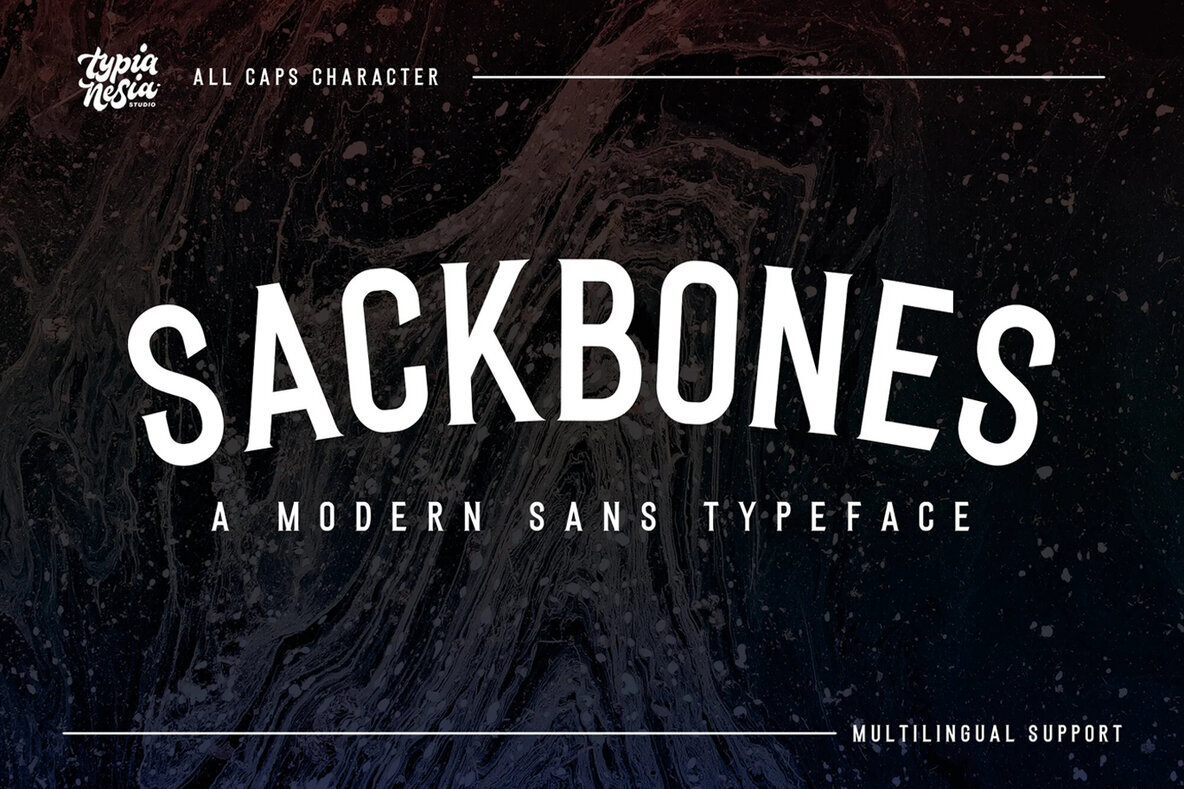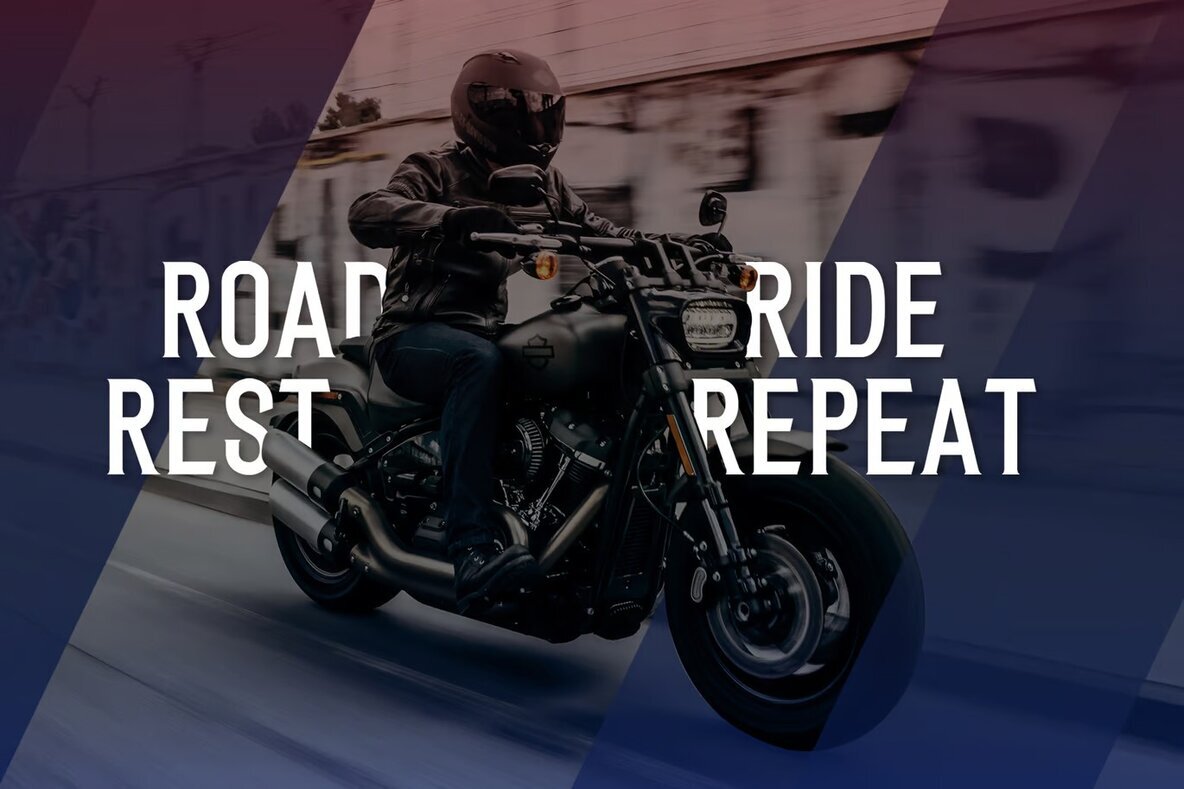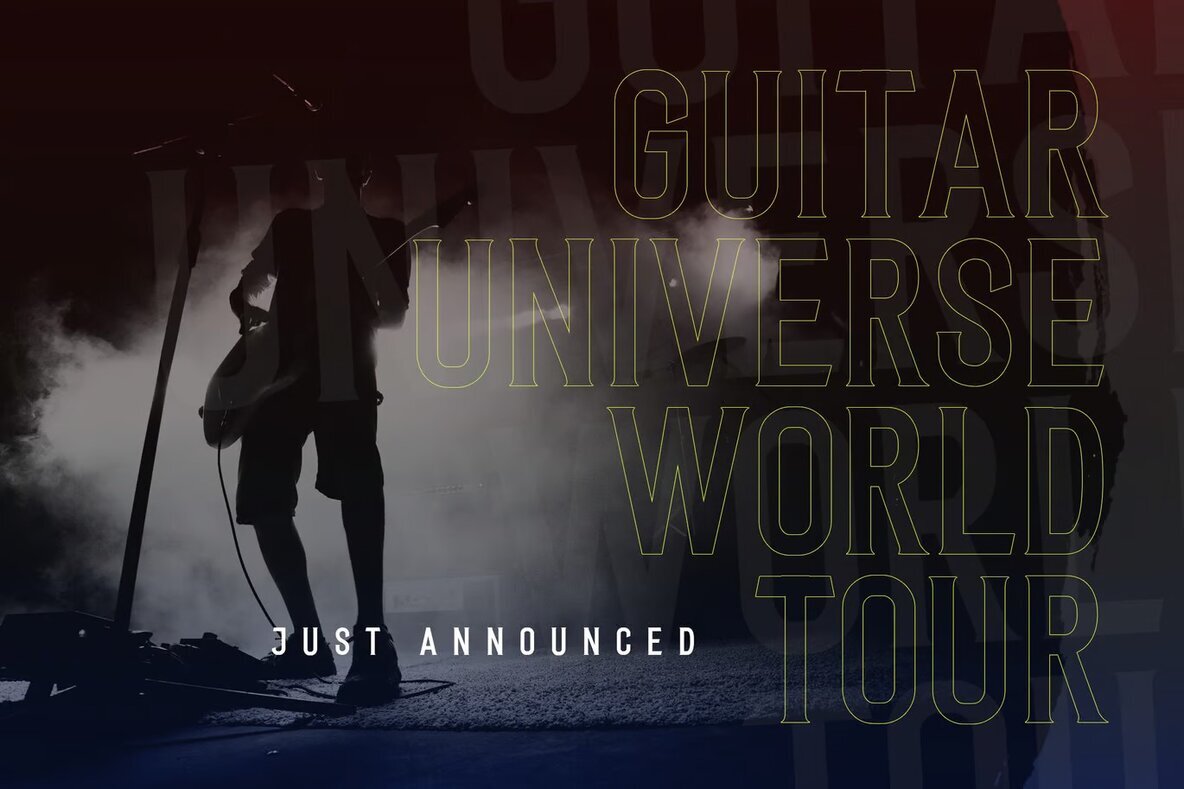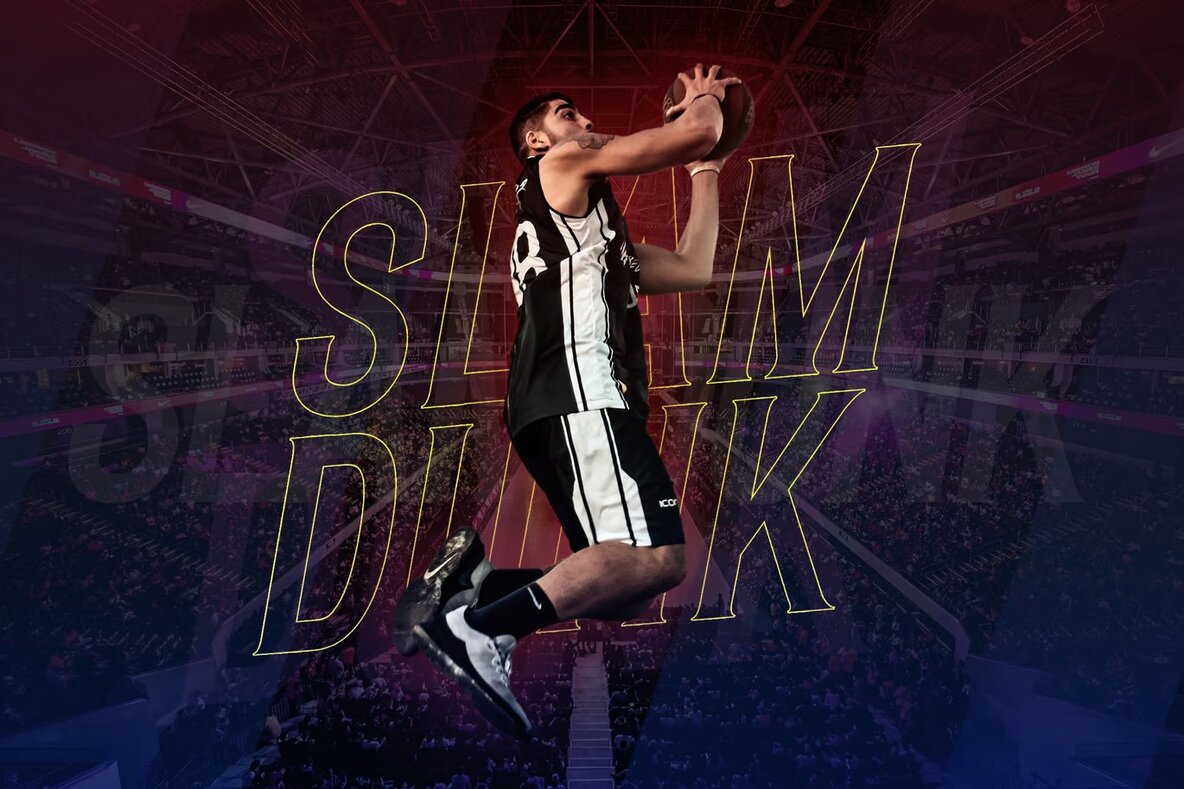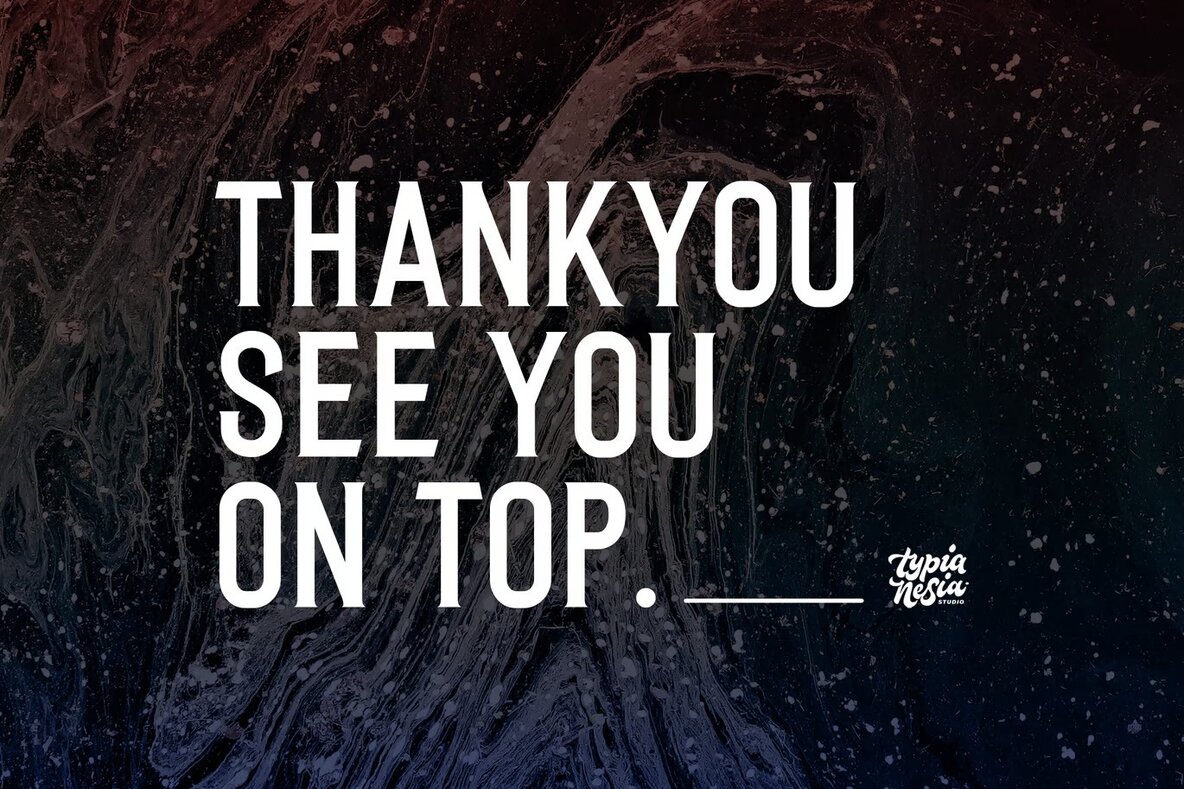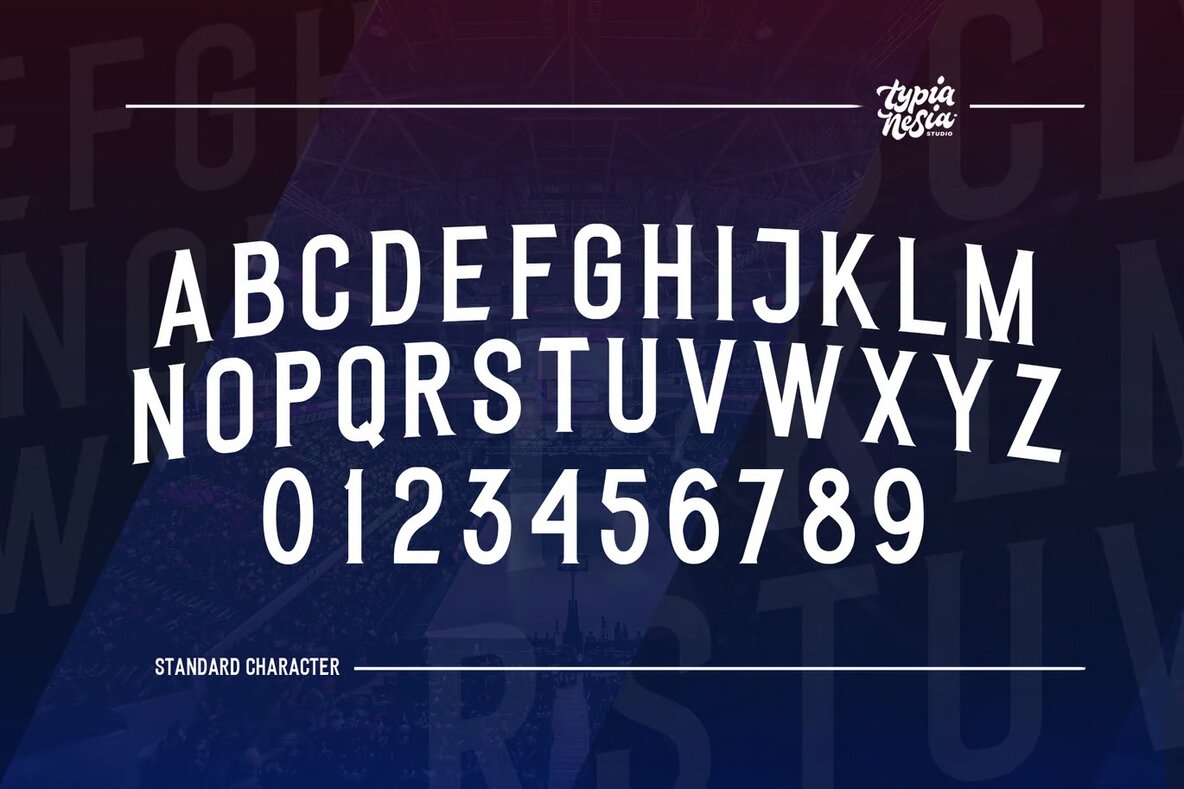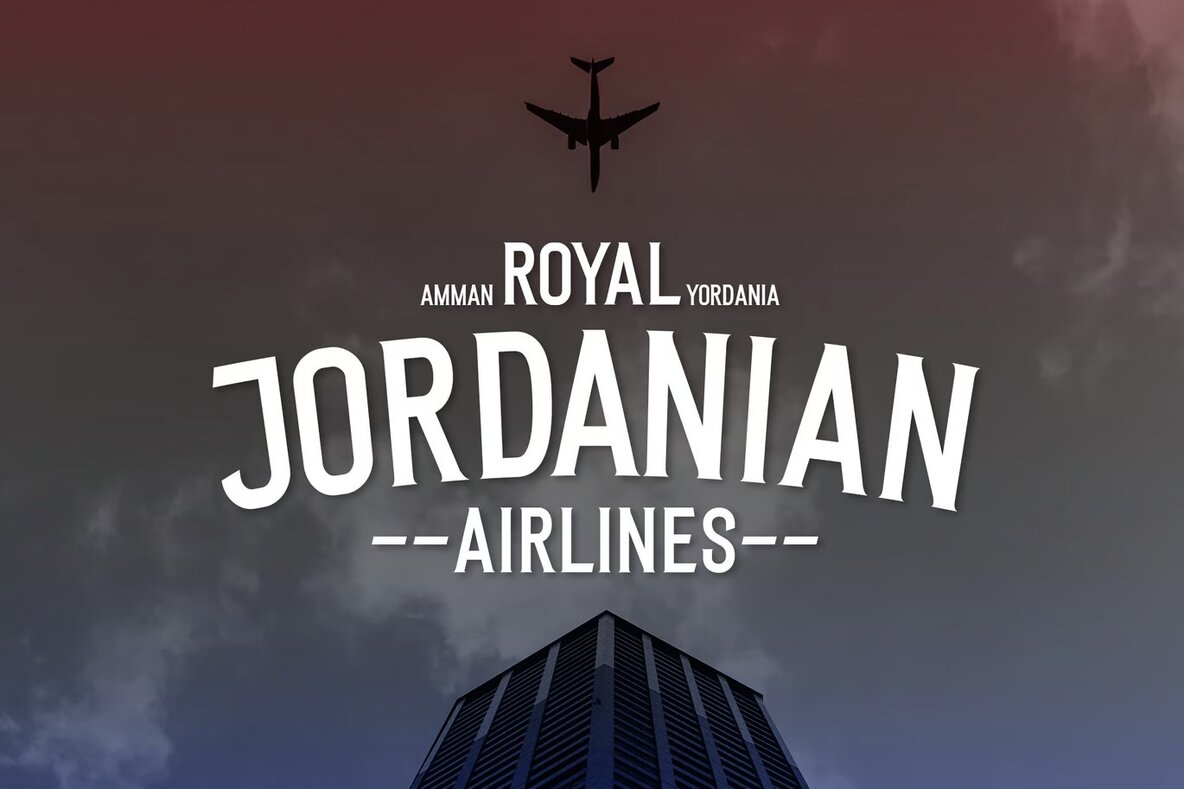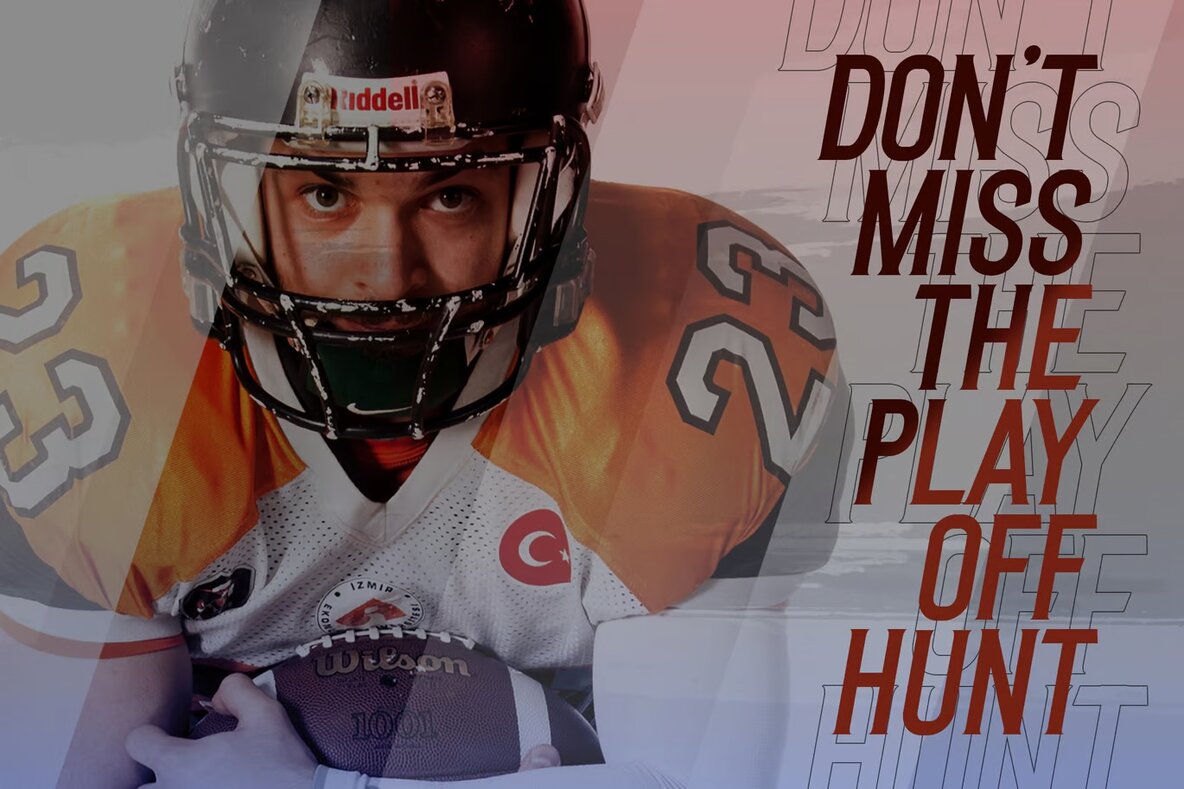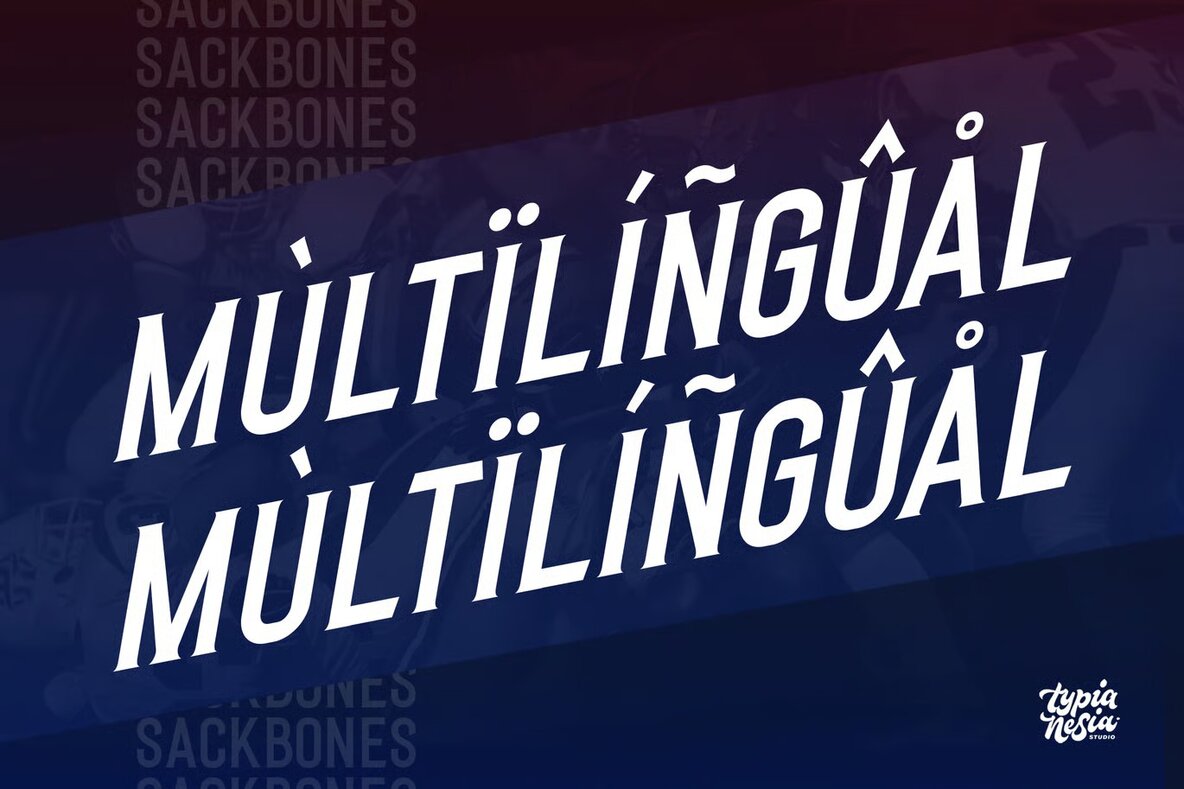
Sackbones Font
Sackbones
Sackbones Sans Serif is a dynamic all-caps sport display font designed for versatility in various creative projects. Its bold and modern aesthetic makes it ideal for logo branding, editorial layouts, and stationery design. This typeface is perfect for those in need of a striking font for sports-themed designs, modern advertisements, or blog visuals.
Its clean and assertive style is also well-suited for card invitations, art quotes, and home decor projects. Whether you're designing a book cover, title page, or gearing up for a special event, Sackbones adds a contemporary flair to any medium. With its robust and attention-grabbing character, this font is a valuable asset for any digital designer's toolkit.